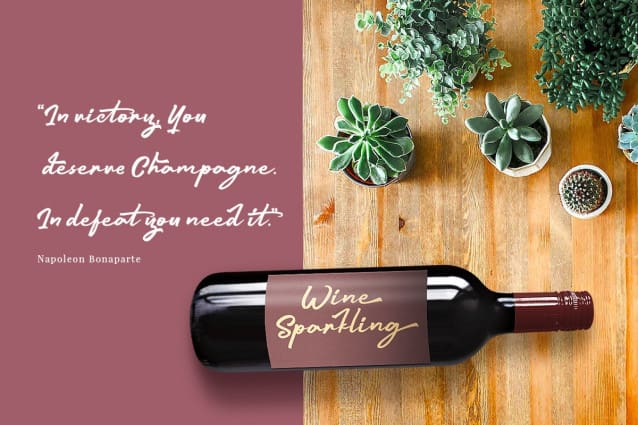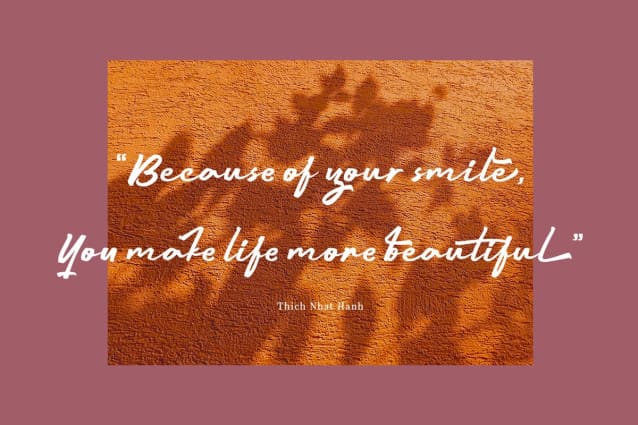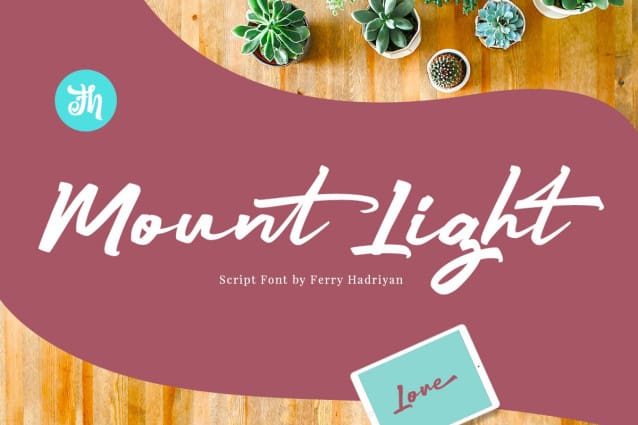
Mount Light Font
Mount Light Font is script font with authentic calligraphy style, with opentype feature include of the font. Suitable for design, element design, wedding, event, t-shirt, logo, badges, sticker, and awesome work, etc…